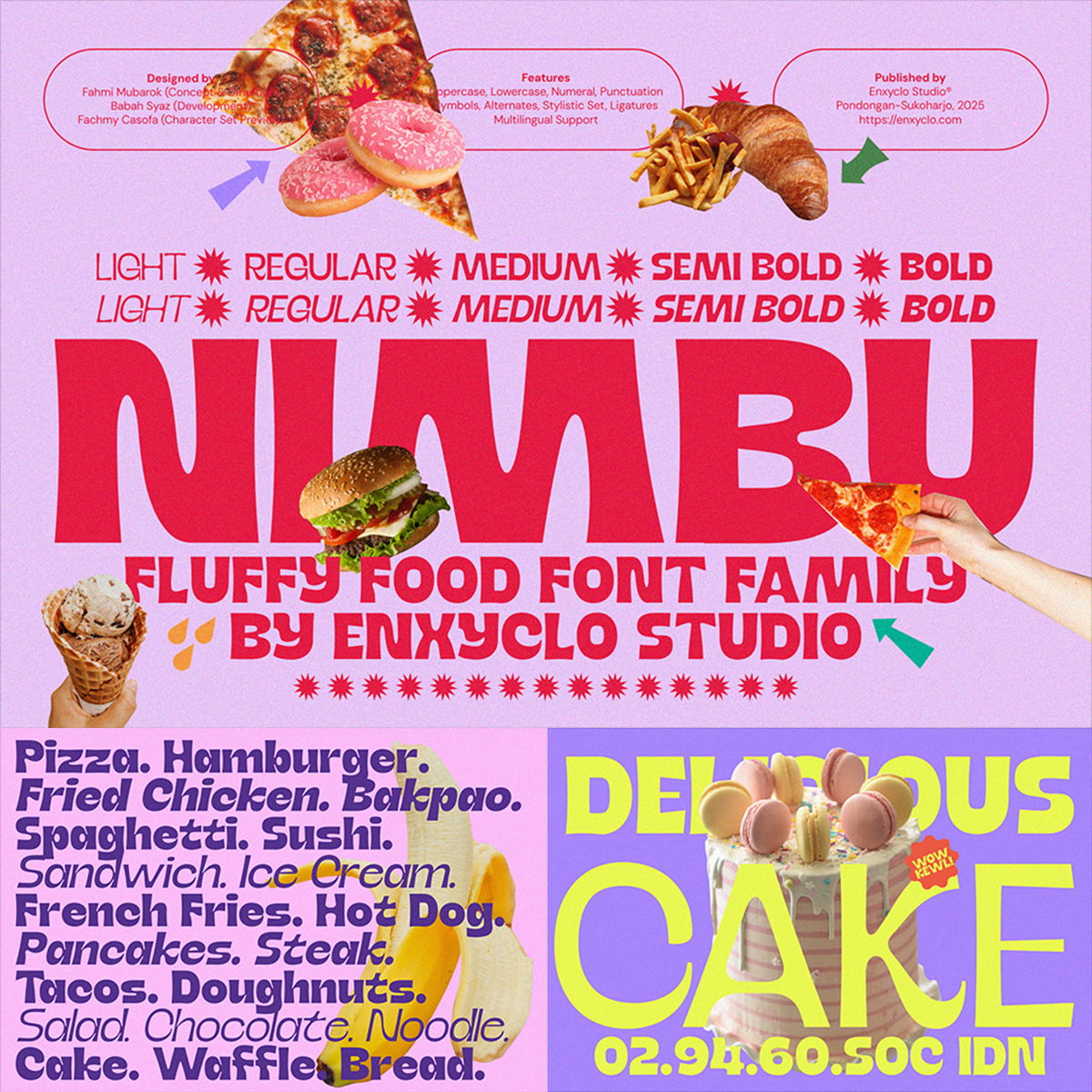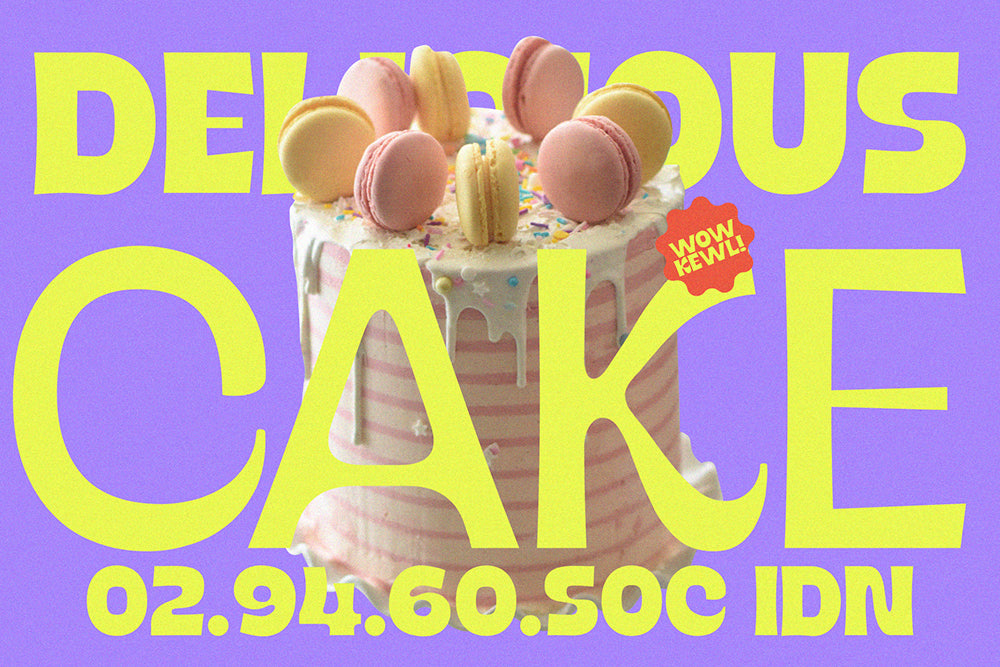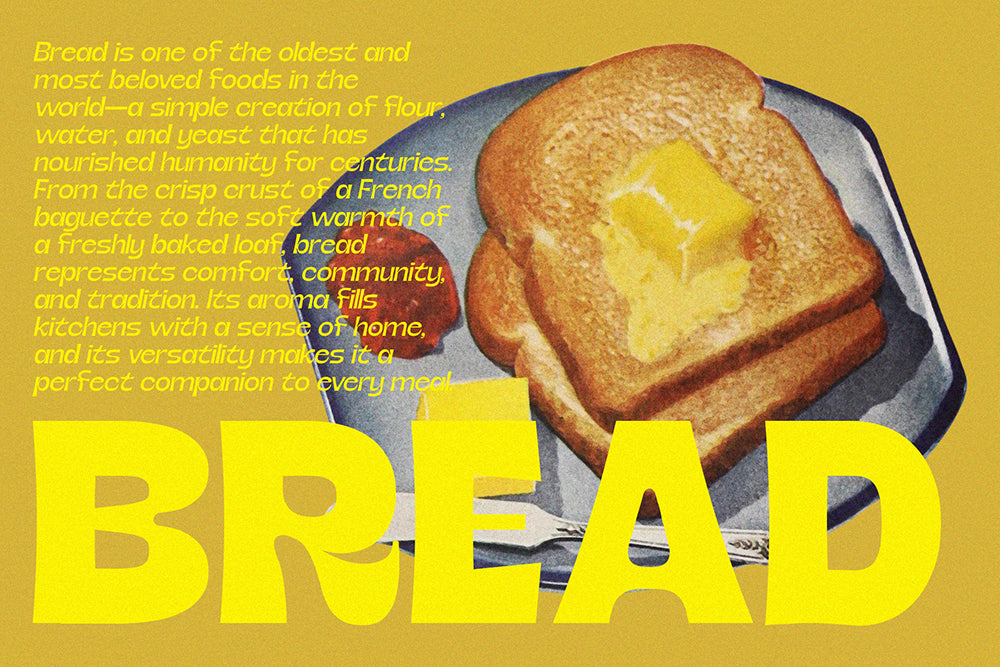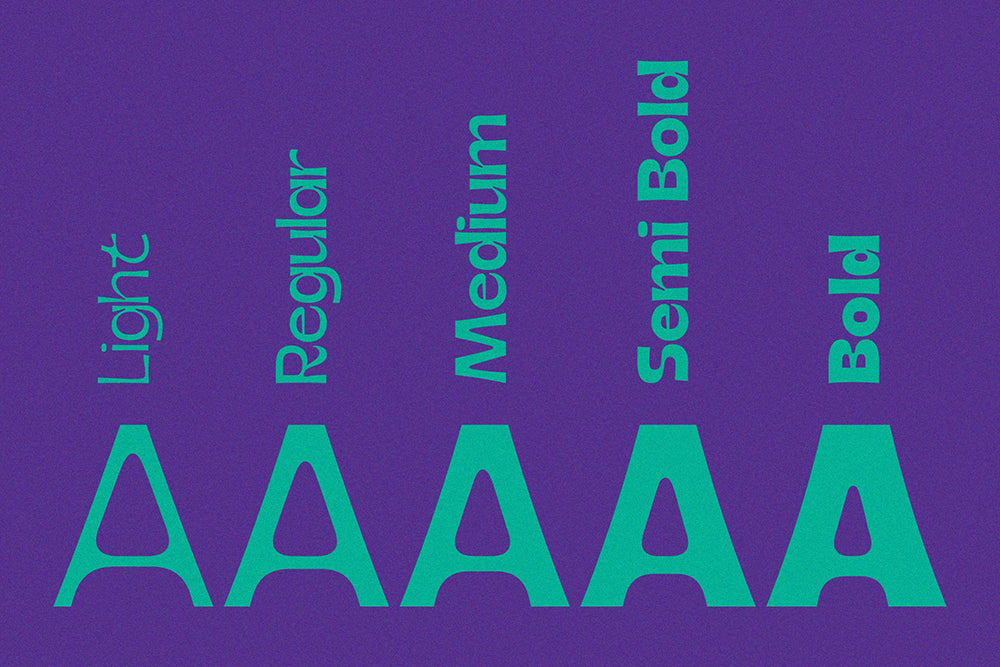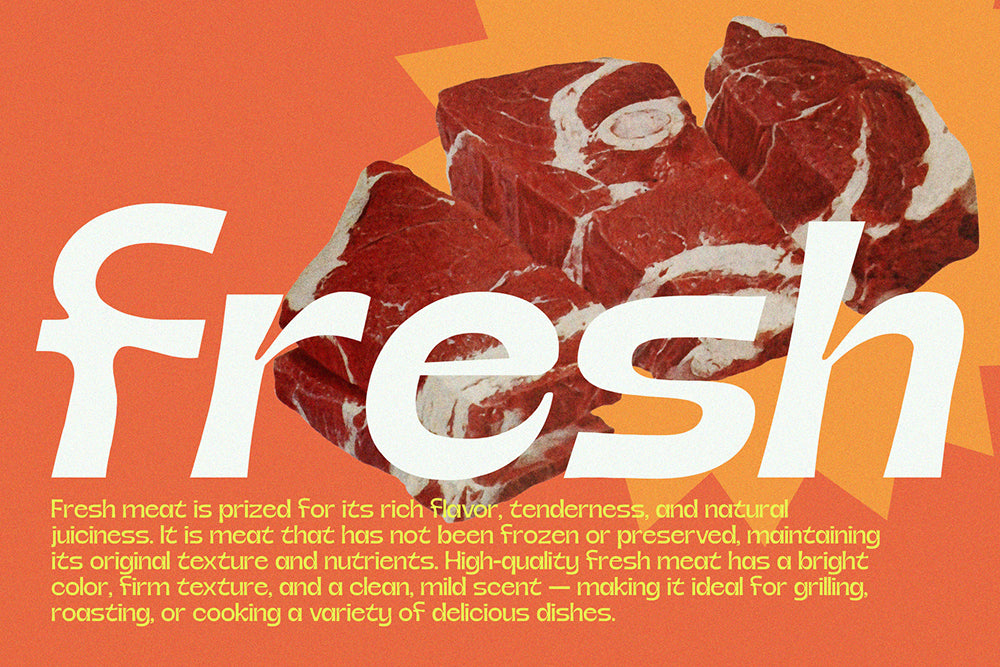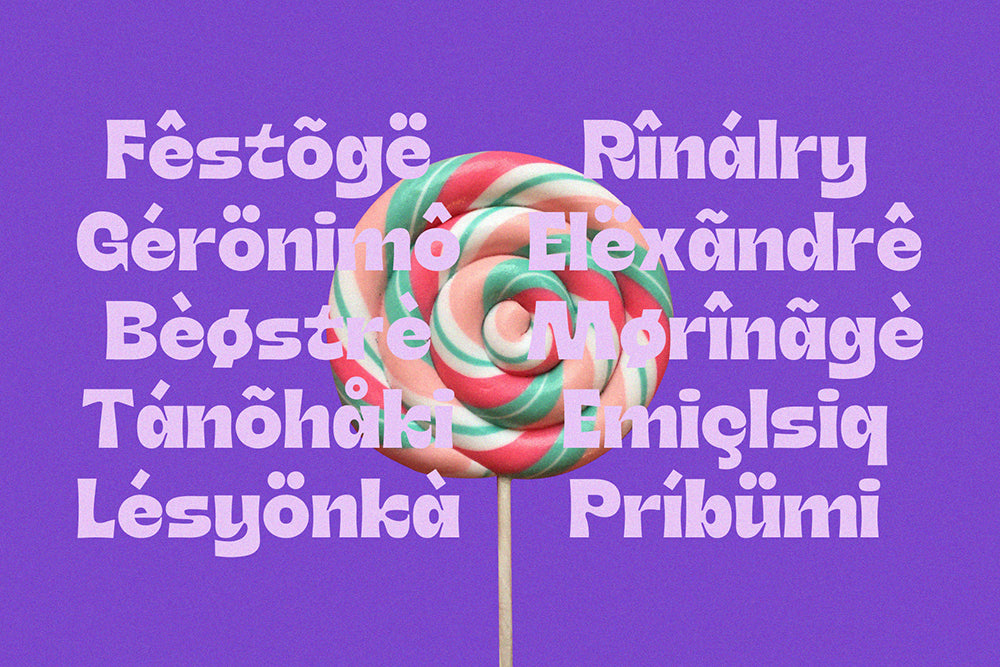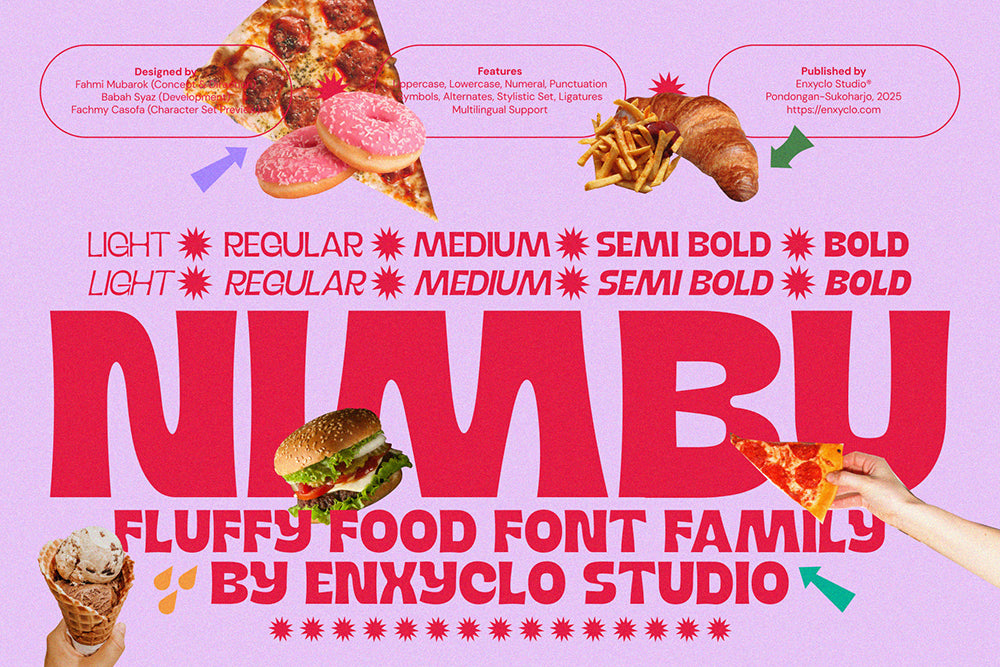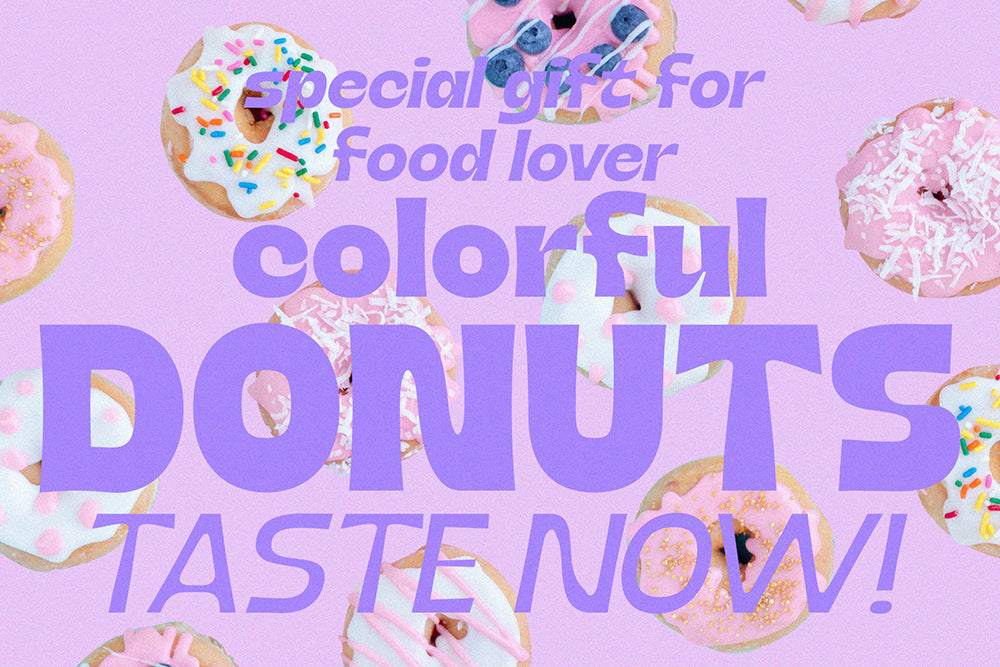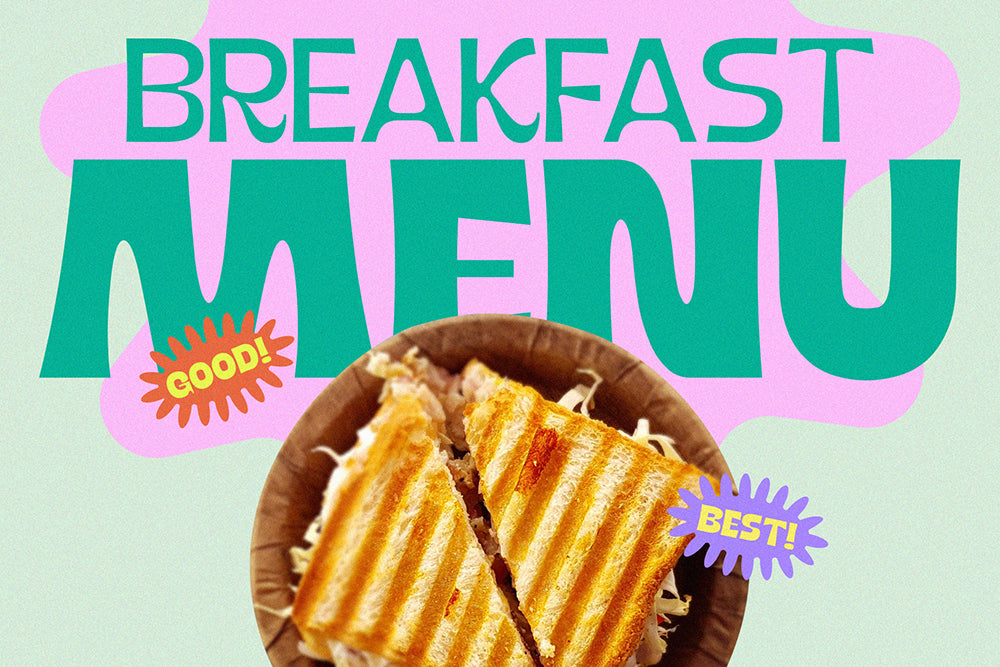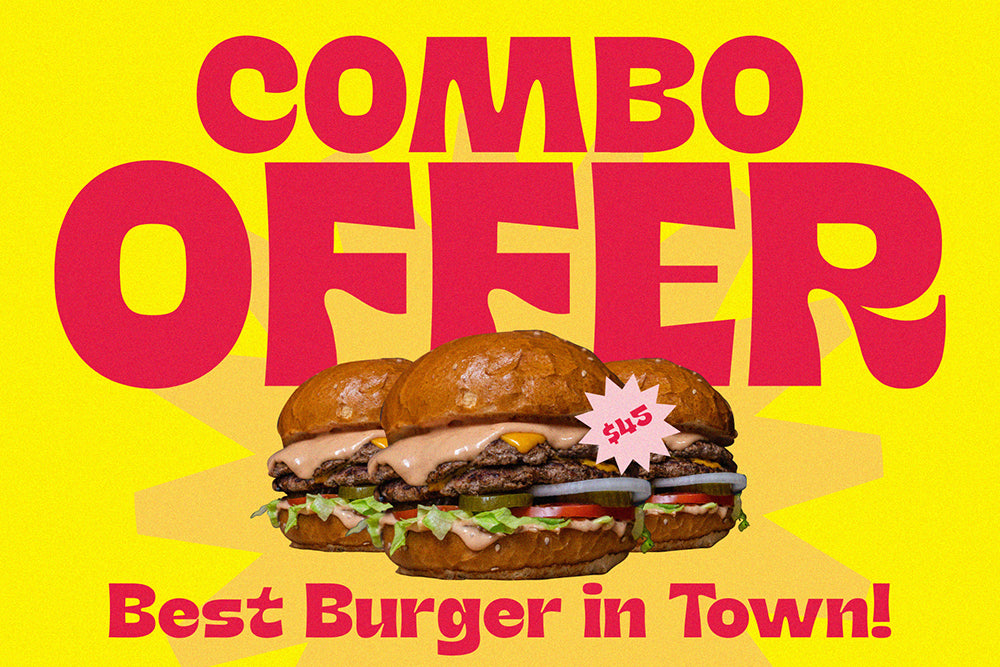
NIMBU — Food Font Family
NIMBU is a food-inspired font family featuring five styles—light, regular, medium, semi bold, and bold—along with slanted versions of each. It includes uppercase, lowercase, numerals, punctuation, and symbols, offers multilingual support, contains 277 glyphs, and ensures high readability for various design applications.